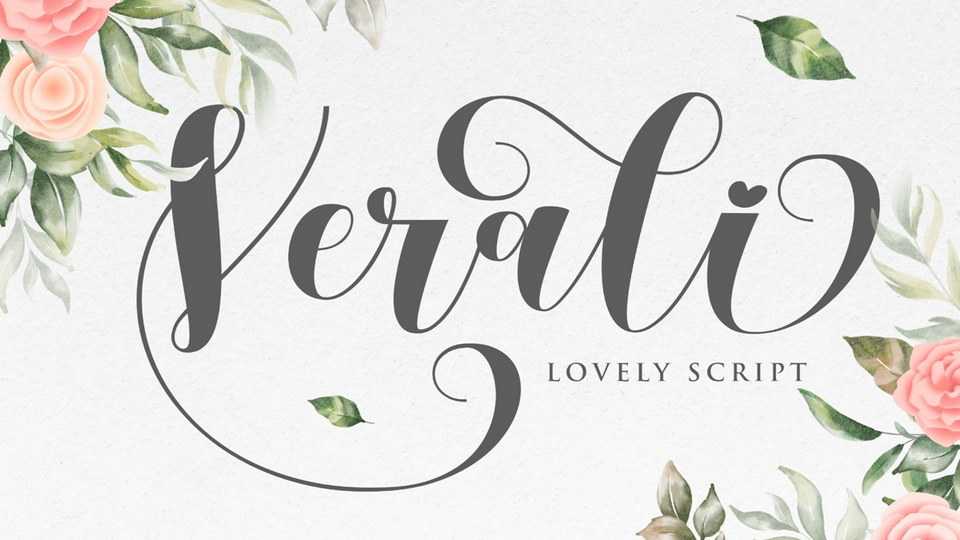
Download Verali font, a romantic and sweet calligraphy typeface with characters that dance along the baseline. Verali has a casual, yet elegant touch that is perfect for any project.
Designer: Gilar Studio